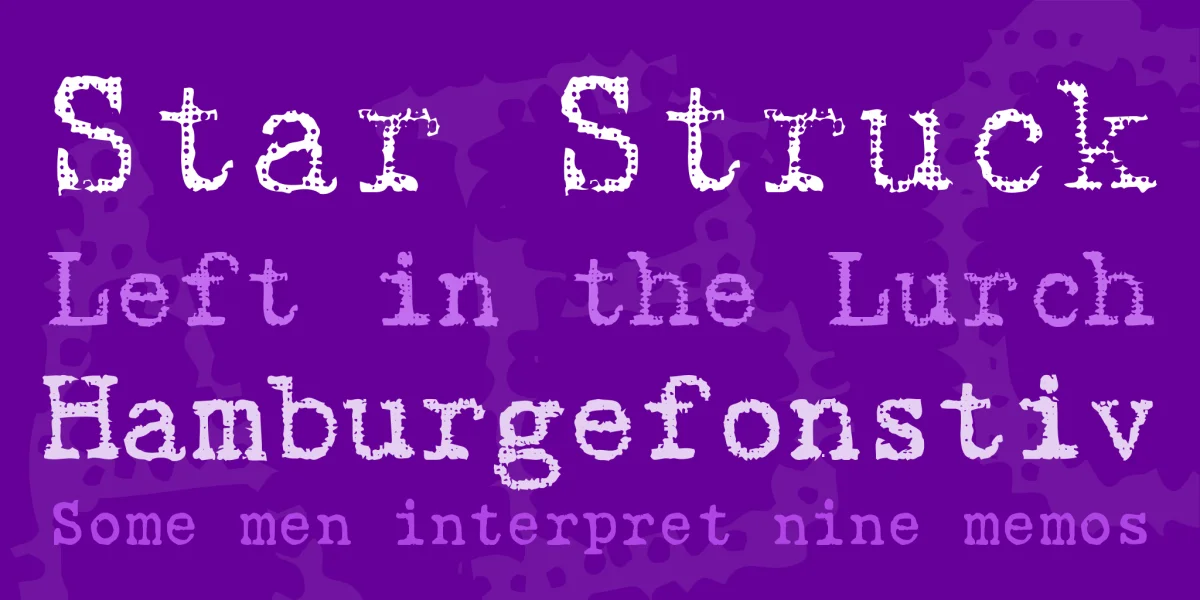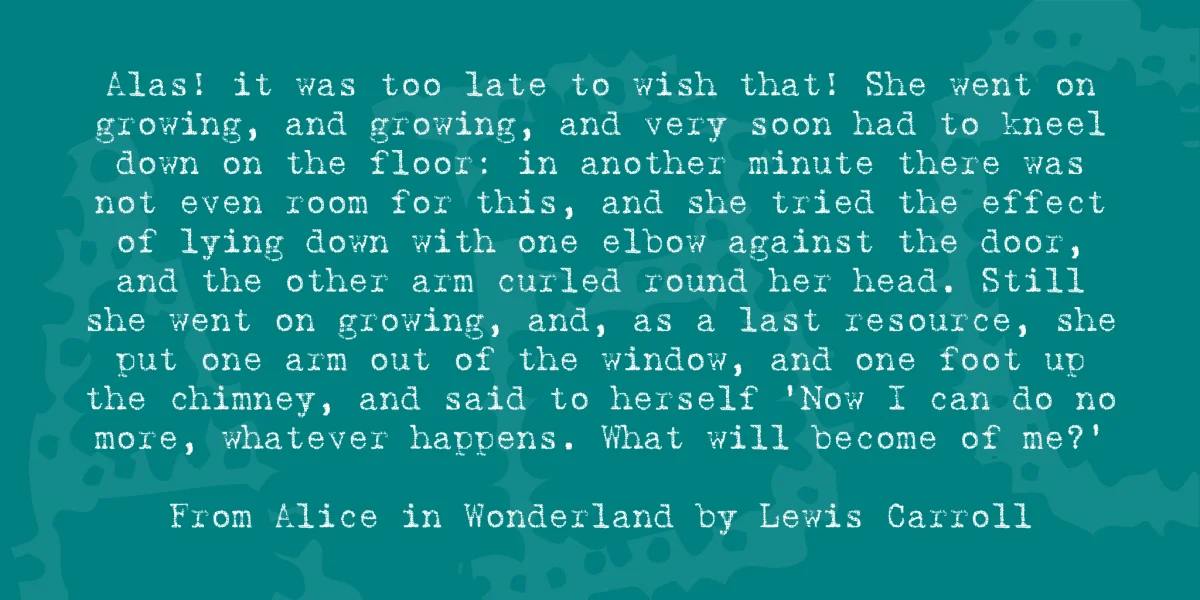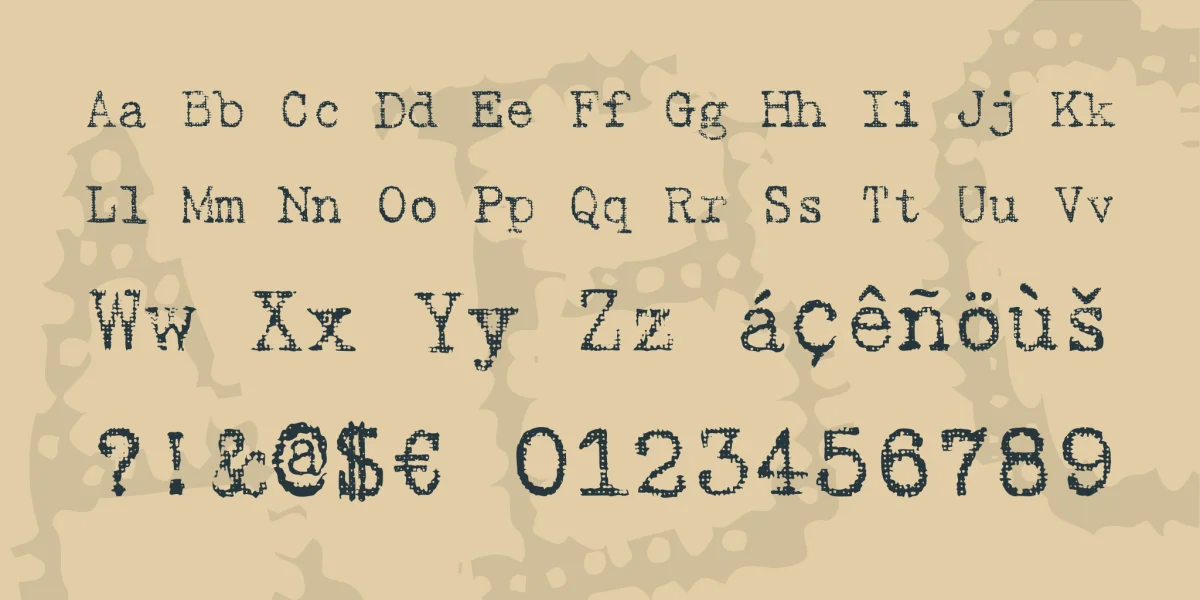
Gabriele was the name of his granddaughter. In 1957 Max Grundig, German industrialist, bought the two companies Triumph and Adler and merged them into his office machine label 'Triumph Adler'. Thus, 'Gabriele' became the name of a popular series of typewriters in postwar Germany.We have chosen this name for our series of typewriter fonts in reminiscence of those machines and all the ladies (called Gabriele or not) that used to type on them from the 1950s to the '80s.The Ribbon members of the Gabriele are based on the Dave-Rakowski font Harting. You can see the texture of the ribbon in each letter. There is a darker companion font "Gabriele Dark Ribbon FG". This is a monospaced font. The characters have all the same width - with the exception of the "ellipsis" character ("...") which is of course three spaces wide. Naturally, these fonts have and need no kerning.